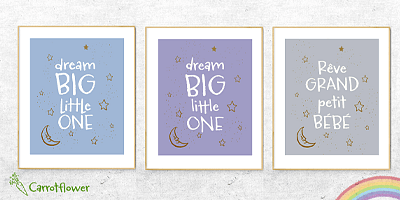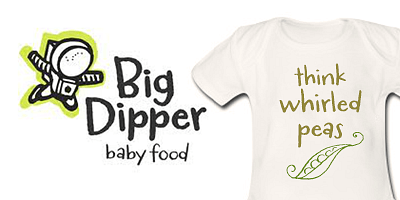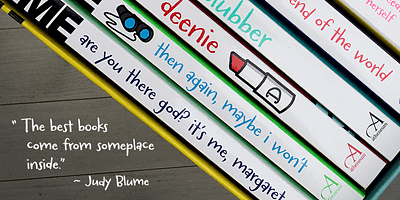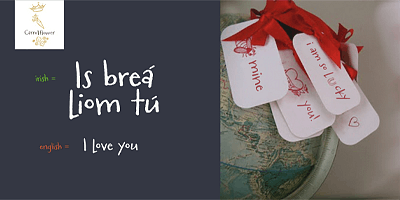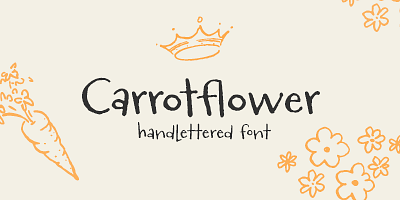
Drawn from one the artist’s most commonly utilized lettering styles, its quiet unfussy nature lends itself well to almost everything. Carrotflower looks amazing on screen and is a real pro at online games & apps.
Features: Standard & stylistic alternate glyphs.